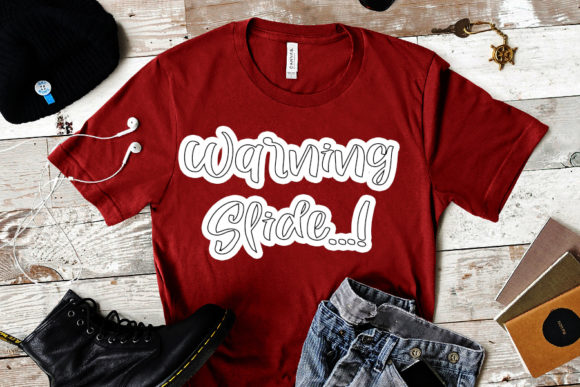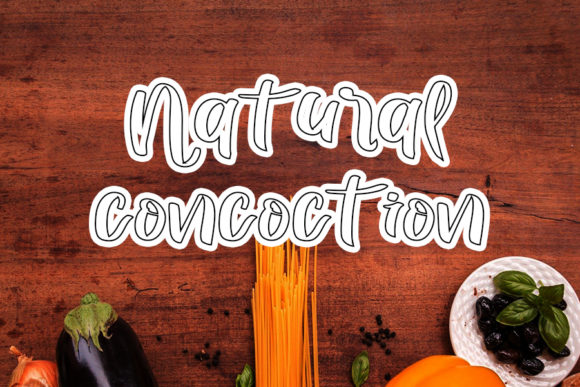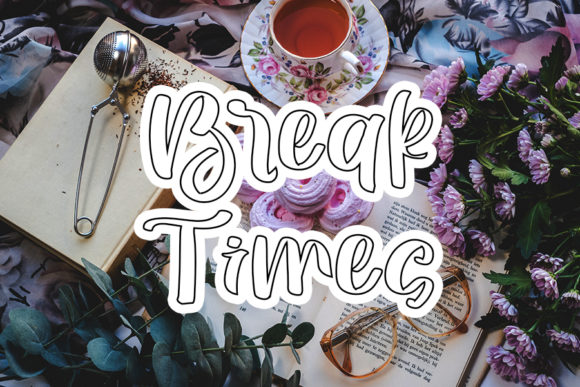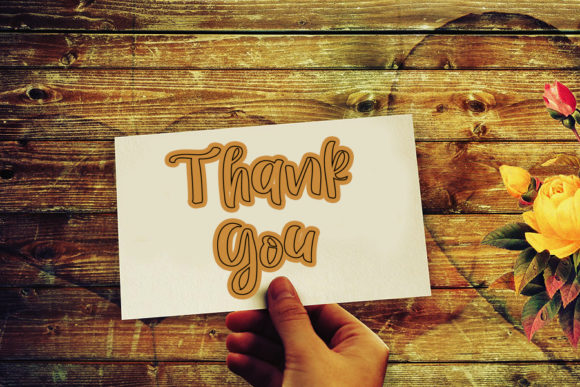
Bebec Pedas Font: Elevate Your Designs with a Sweet Outlined Display
Bebec Pedas is a stunning display font that has captured the hearts of designers and crafters alike. With its beautiful flow and sweet outlined style, this font is sure to bring your projects to the highest levels. In this article, we’ll dive into the world of Bebec Pedas, exploring its unique features, usage, and benefits.
The Beauty of Bebec Pedas
Bebec Pedas is a masterfully crafted font, boasting a distinctive outlined style that exudes elegance and sophistication. Its beautiful flow makes it perfect for headlines, titles, and any other design element that requires a touch of refinement. Whether you’re working on a logo, brochure, or website, Bebec Pedas is sure to make a lasting impression.
Key Features of Bebec Pedas
- Sweet Outlined Style: Bebec Pedas features a delicate outlined style that adds a touch of whimsy to your designs.
- Beautiful Flow: The font’s flowing curves and lines create a sense of movement and fluidity, making it perfect for dynamic designs.
- Display Font: Bebec Pedas is designed specifically for display purposes, making it ideal for headlines, titles, and other attention-grabbing elements.
- High Versatility: This font can be used in a wide range of design projects, from logos and brochures to websites and social media graphics.
Benefits of Using Bebec Pedas
So, why should you choose Bebec Pedas for your next design project? Here are just a few benefits of using this stunning font:
- Adds Elegance and Sophistication: Bebec Pedas brings a level of refinement and sophistication to your designs, making them stand out from the crowd.
- Enhances Readability: The font’s clear and concise style ensures that your message is communicated effectively, even at smaller sizes.
- Increases Creativity: With Bebec Pedas, you can experiment with a wide range of design possibilities, from minimalist to elaborate.
- Perfect for Branding: This font is ideal for creating a consistent brand identity, as it can be used across various platforms and mediums.
Tips for Using Bebec Pedas
To get the most out of Bebec Pedas, here are some tips to keep in mind:
- Pair with Contrasting Fonts: Combine Bebec Pedas with contrasting fonts to create visual interest and hierarchy.
- Experiment with Colors: Try out different color schemes to find the perfect match for your design.
- Use for Headlines and Titles: Bebec Pedas is perfect for headlines and titles, but feel free to experiment with other design elements, too.
- Don’t Overuse: Use Bebec Pedas judiciously to avoid overwhelming your design.
Bebec Pedas is a sweet outlined display font that is sure to capture your heart. With its beautiful flow and elegant style, this font is perfect for designers and crafters looking to elevate their projects. Whether you’re working on a logo, brochure, or website, Bebec Pedas is the perfect choice. So, fall in love with Bebec Pedas and bring your designs to the highest levels!
Bebec Pedas is a stunning font that is sure to make a lasting impression. With its unique features, versatility, and elegance, it’s the perfect addition to any design project. So, what are you waiting for? Fall in love with Bebec Pedas and take your designs to new heights!